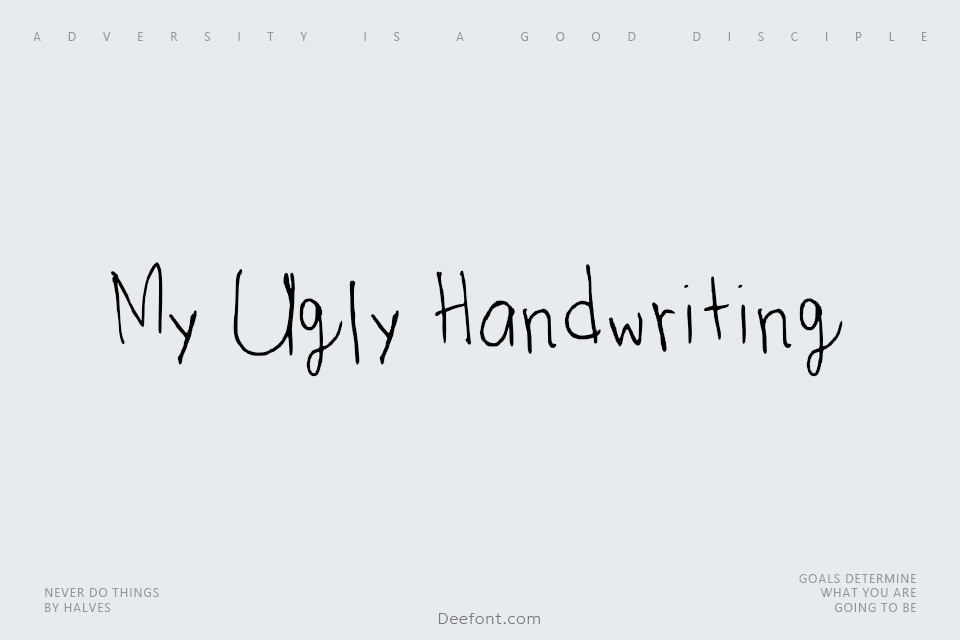
My Ugly Handwriting Font
My Ugly Handwriting is a casual script typeface that captures the authentic, imperfect beauty of genuine handwriting. Designed by Hillary Kandou and created with Calligraphr.com, this font brings a playful, informal aesthetic to creative projects, making it perfect for personal designs, invitations, and casual branding applications that value personality and authentic character over polished formality.